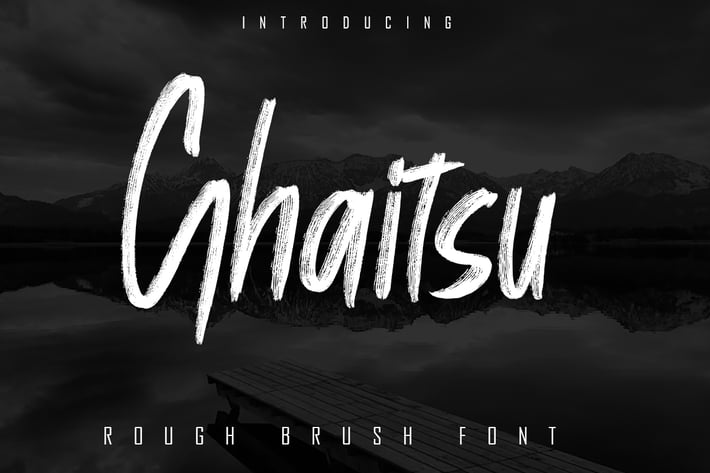
Ghaitsu - Rough Brush Font
Ghaitsu was inspired by the Handwritten of natural rough brushes. Written in quick motion using a brush pen, it's a bit dry and looks realistic.